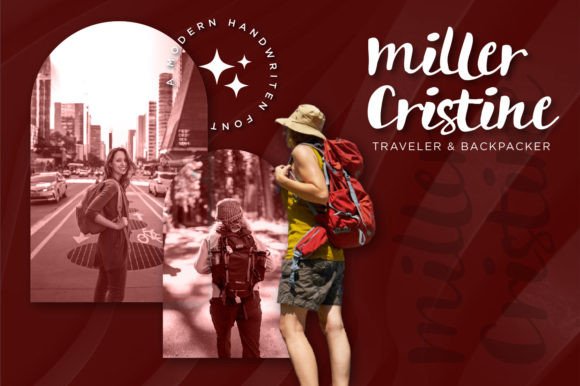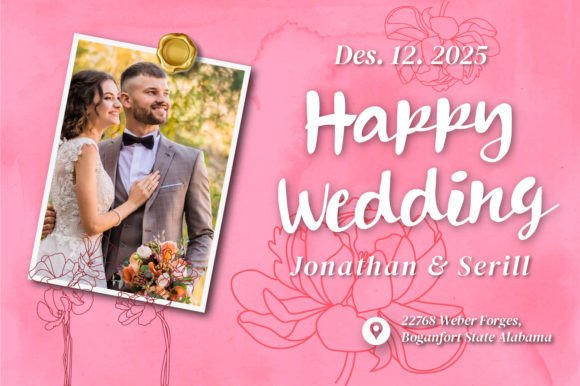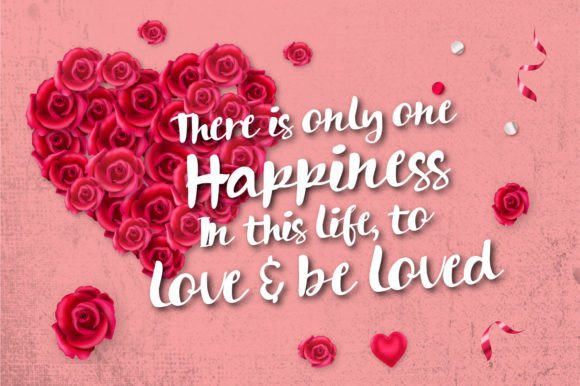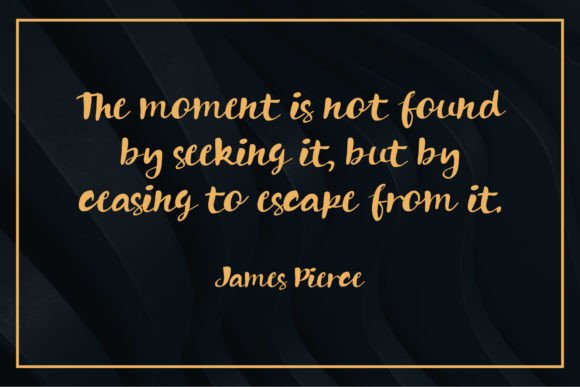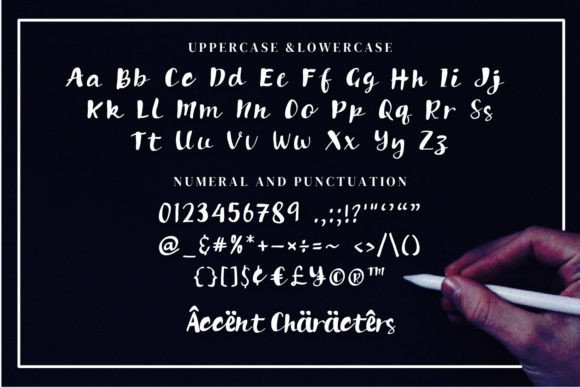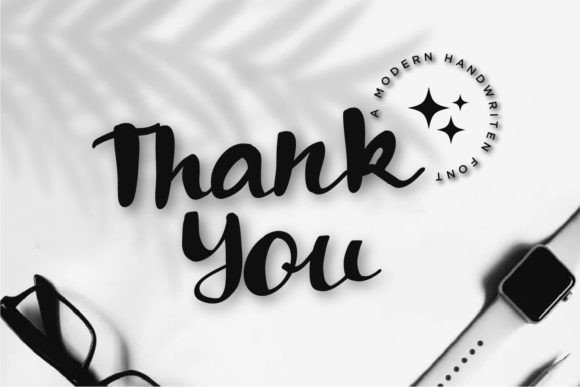
Introduction to Ronald Collie Font
As a designer, have you ever found yourself staring at a blank page, waiting for the perfect font to bring your creative project to life? The moment of discovery, when the right font clicks into place, is a thrill unlike any other. For those seeking to elevate their designs, we’re excited to introduce the Ronald Collie Font – a stunning script font that exudes elegance and sophistication.
| 👤 Author | Naharstdio |
With its fluid and graceful letterforms, the Ronald Collie Font is a valuable addition to any design resource. Its intricate details and delicate curves make it perfect for adding a touch of refinement to branding, invitations, or editorial layouts. Whether you’re working on a high-quality project or need a free download for a creative project, this font is sure to impress with its transparent background and high-quality design.
- High-quality font design with a transparent background, ideal for creative projects that require a sleek and modern look.
- With its unique and creative design, the Ronald Collie Font is an excellent resource for designers looking to add a touch of elegance to their work.
Honest Review: Ronald Collie Font
As a designer, I’ve come across my fair share of fonts, but the Ronald Collie Font caught my eye. I decided to give it a try and see if it’s worth adding to my design resource arsenal.
One of the things that stood out to me was the high quality of the font. The crisp lines and smooth curves make it perfect for any creative project. I was also impressed by the transparent background, which allows for seamless integration with any design.
Here are some of the things that work well with the Ronald Collie Font: ✨
That being said, there are a few limitations to consider: ⚠️
- Not as many font styles as some other popular fonts
- May not be suitable for extremely large or complex designs
Overall, I’m impressed with the Ronald Collie Font and would definitely recommend it to fellow designers. It’s a solid addition to any design resource collection and a great choice for creative projects. The free download is a definite bonus, making it an excellent value for the price.
To get the most out of Ronald Collie Font, experiment with different font sizes and colors to create a visually appealing design. You can also combine it with other fonts to add depth and interest to your design.
Common Use Cases for Ronald Collie Font
Ronald Collie Font is perfect for a variety of creative projects, including logos, posters, and business cards. Its high quality and versatility make it a great addition to any design resource library.